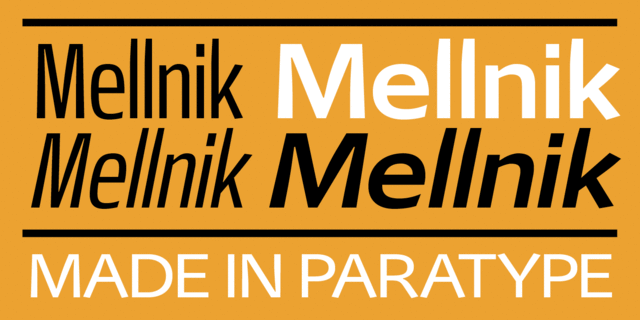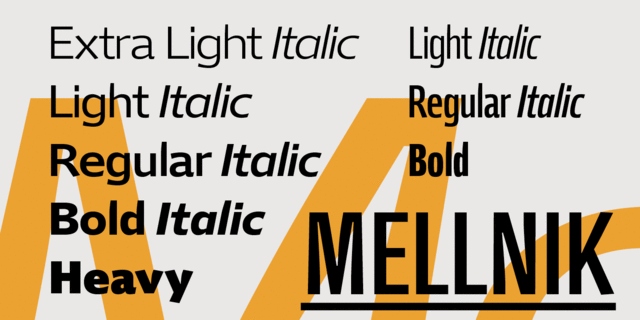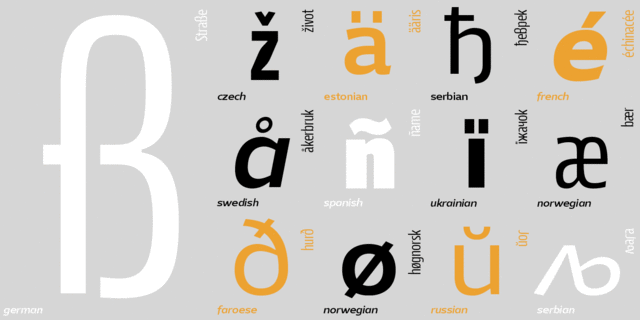
About MellnikMellnik is a humanist sans serif designed by Oleg Karpinsky for ParaType in 2006. The type family contains nine styles with a number of alternate characters in each one. It’s applicable as a text font in long text passages of advertising booklets, catalogues or magazines, as well as for display setting. Mellnik may be also used as a corporate typeface. Five condensed styles were added in 2007 by the same designer.
Associations for font family MellnikTypeface personality and character:
delicate, clean, easy, chilly, fresh, fashionable, stable, serious, solid, reliable, urbanistic, manly, strong, heavy, notable, bright, active, splashy, slim, tall, flat, simple, important, loud, motivating, ambitious